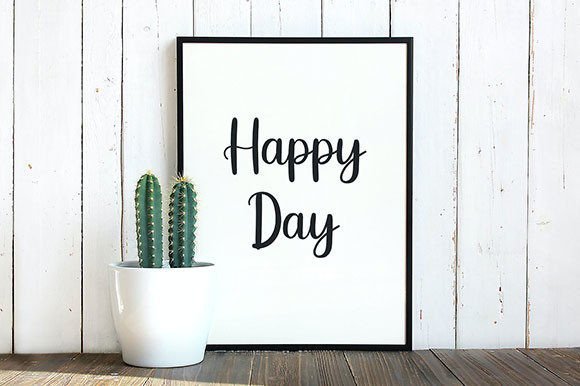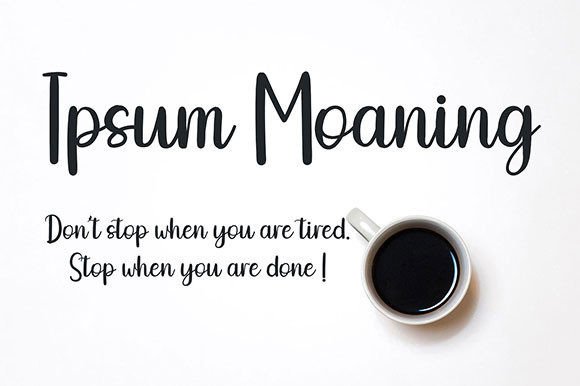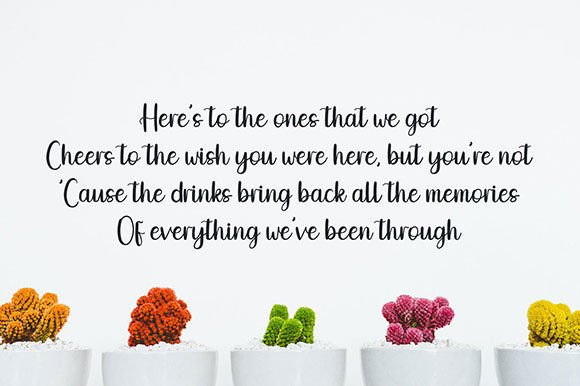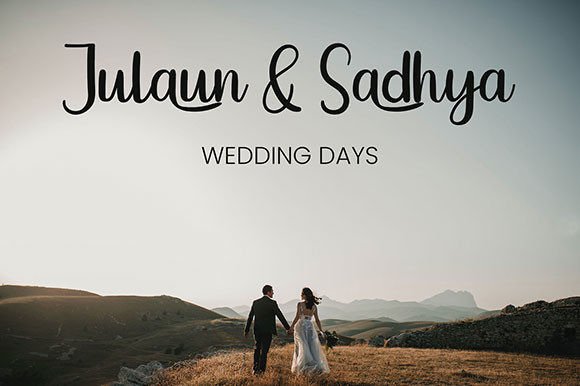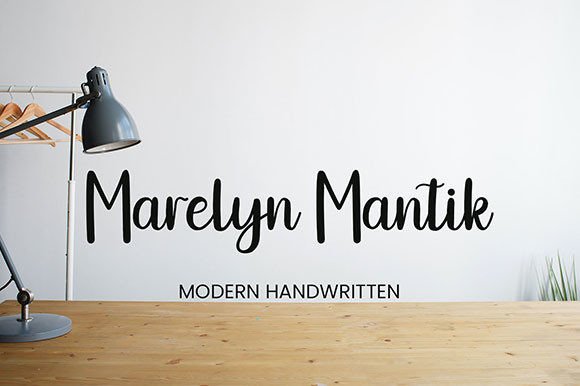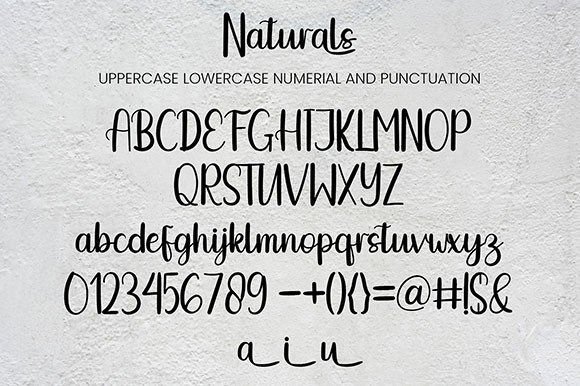
Introduction to Naturals Font
As a designer, there’s nothing quite like the feeling of discovering a new font that perfectly captures the essence of your creative project. For me, it’s often a moment of serendipity, like stumbling upon a hidden treasure trove of inspiration. And that’s exactly what happened when I came across the Naturals Font – a beautiful, cursive handwritten font that’s as versatile as it is elegant.
Whether you’re working on a quote, logo, or blog header, the Naturals Font is sure to bring a touch of warmth and sophistication to your design. With its high-quality, free download available, it’s an invaluable resource for any designer looking to elevate their creative projects. And with a transparent background, the possibilities are endless – from fashion and clothing to stationery and invitations, the Naturals Font is the perfect addition to your design toolkit.
- Naturals Font is a unique and versatile design resource that can be used in a variety of creative projects, from logos to typography-based designs.
Honest Review: Naturals Font
I recently stumbled upon the Naturals Font and I must say, it’s been a game-changer for my design projects. This high-quality font has been a valuable addition to my design resource library.
- Clean and elegant design – the Naturals Font is perfect for creating a minimalist aesthetic in your creative project.
- Transparent background – this feature makes it easy to overlay text on images without any distractions.
- Limited font styles – while the font is beautiful, it would be great to see more styles and variations available.
- May not be suitable for bold headlines – the font’s delicate nature might make it challenging to use for large, attention-grabbing headlines.
Overall, I’m really impressed with the Naturals Font. It’s a great addition to any design project, and I appreciate its high quality and transparency. While it may have some limitations, I believe it’s a valuable resource for designers looking for a clean and elegant font.
For the best results, use the Naturals Font in conjunction with a clear and concise design approach. Experiment with different font sizes, colors, and combinations to get the most out of this versatile font. Additionally, consider using it in common use cases such as headings, titles, and body text.
The Naturals Font is ideal for a wide range of creative projects, including brochures, flyers, business cards, and website headers. Its high-quality design and transparent background make it a popular choice among designers and non-designers alike.